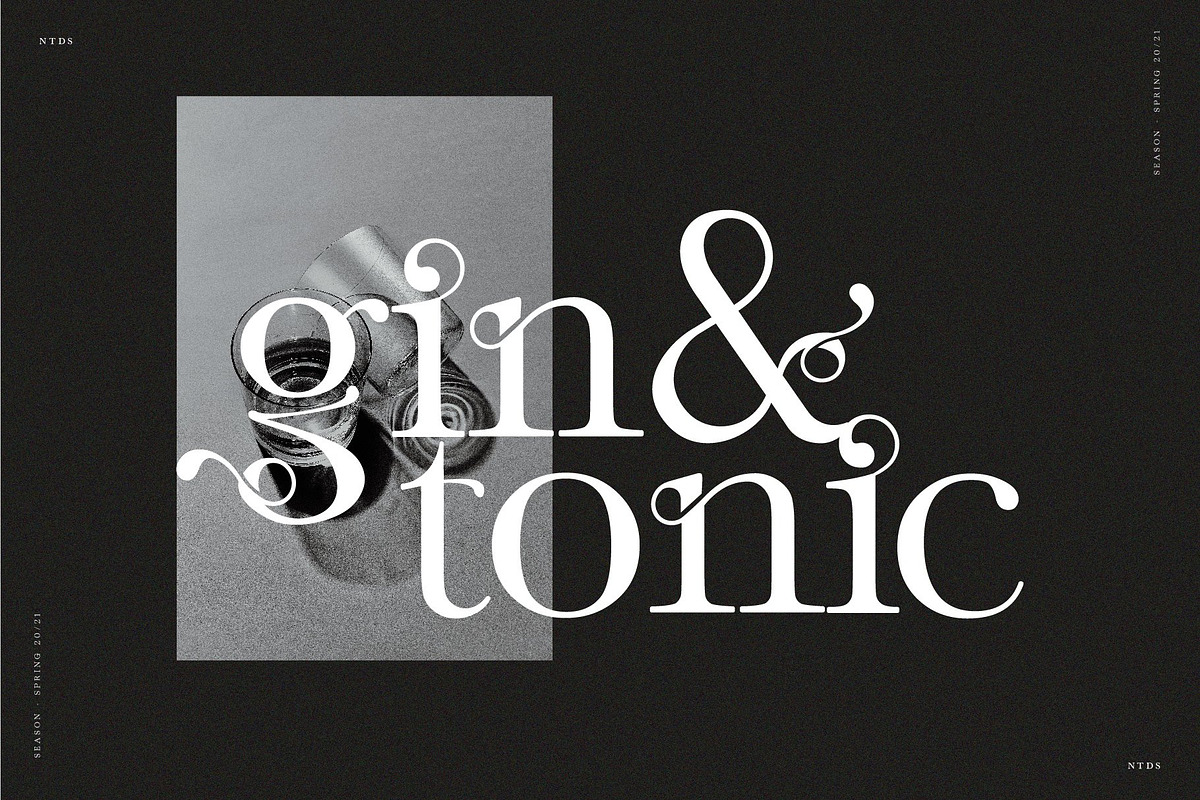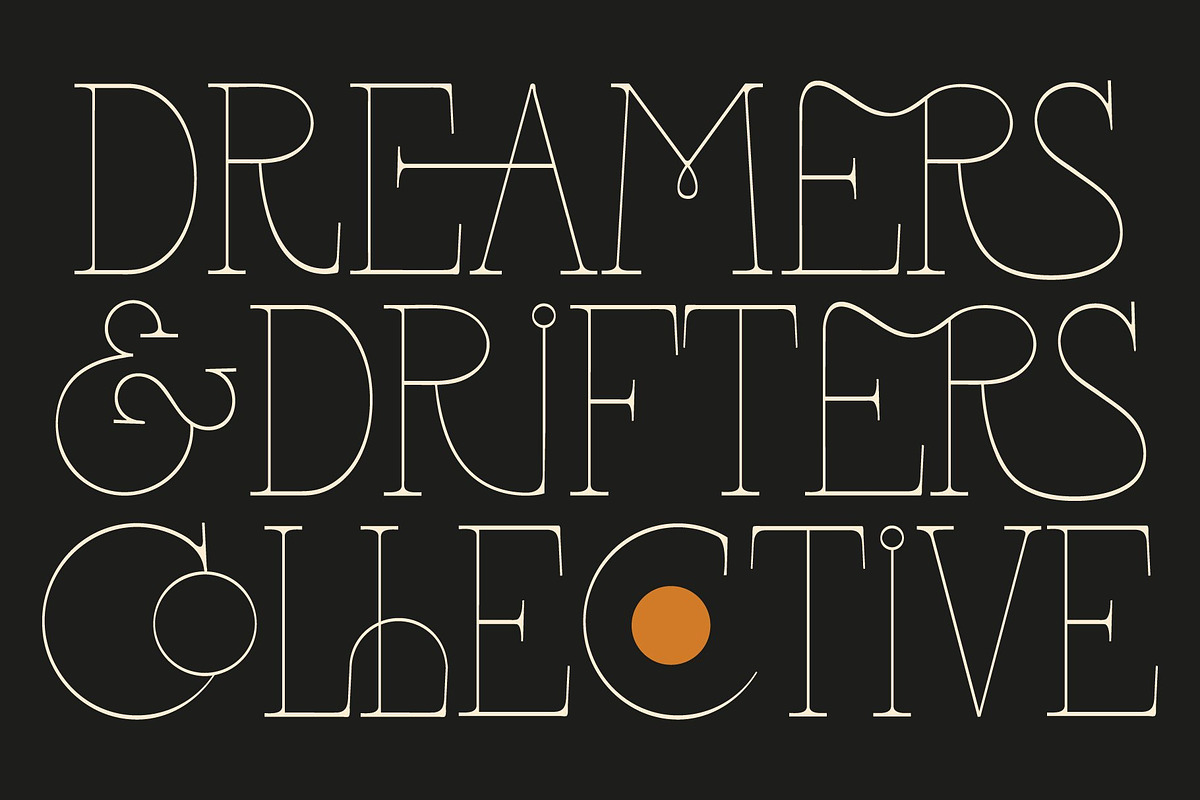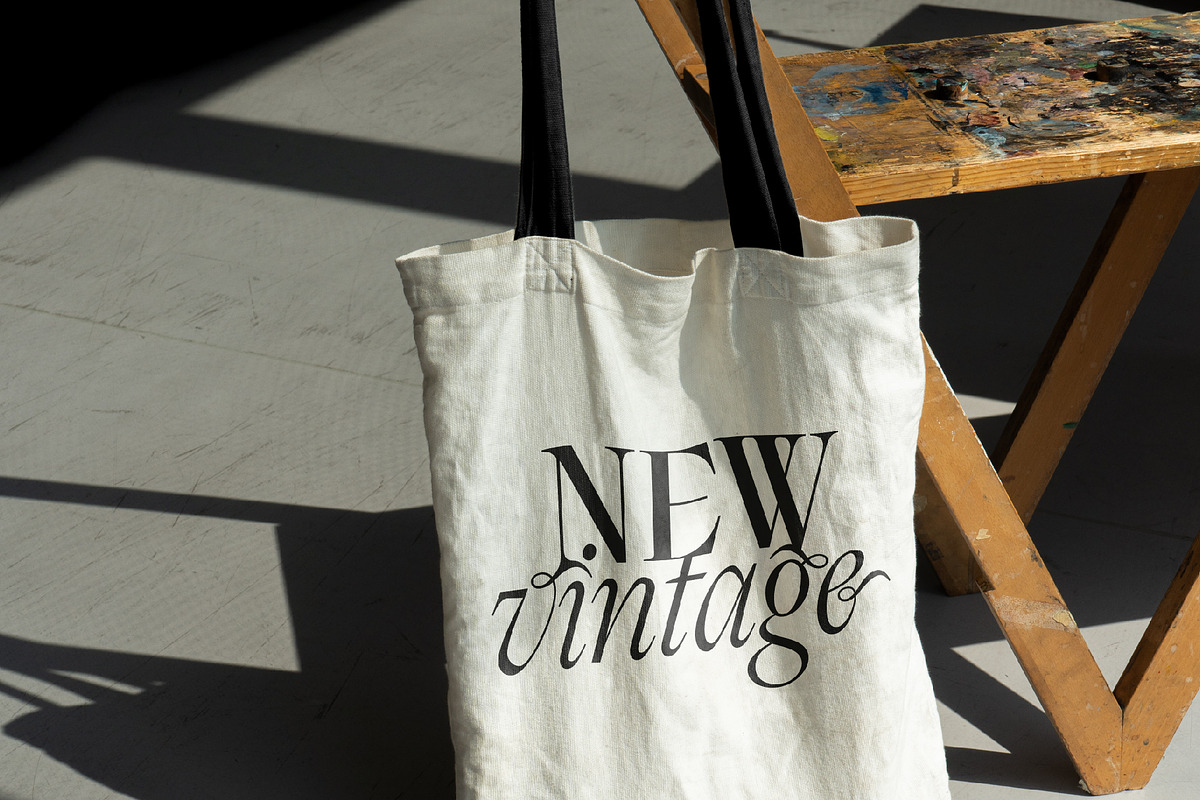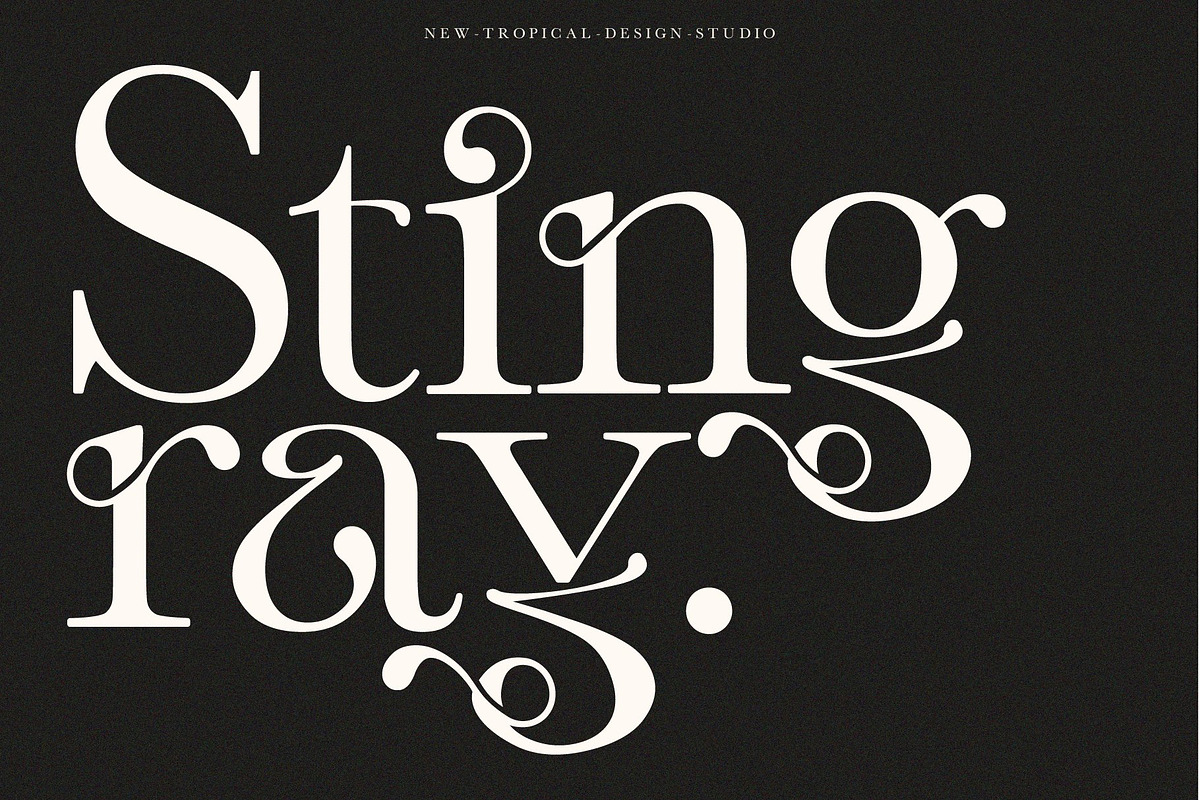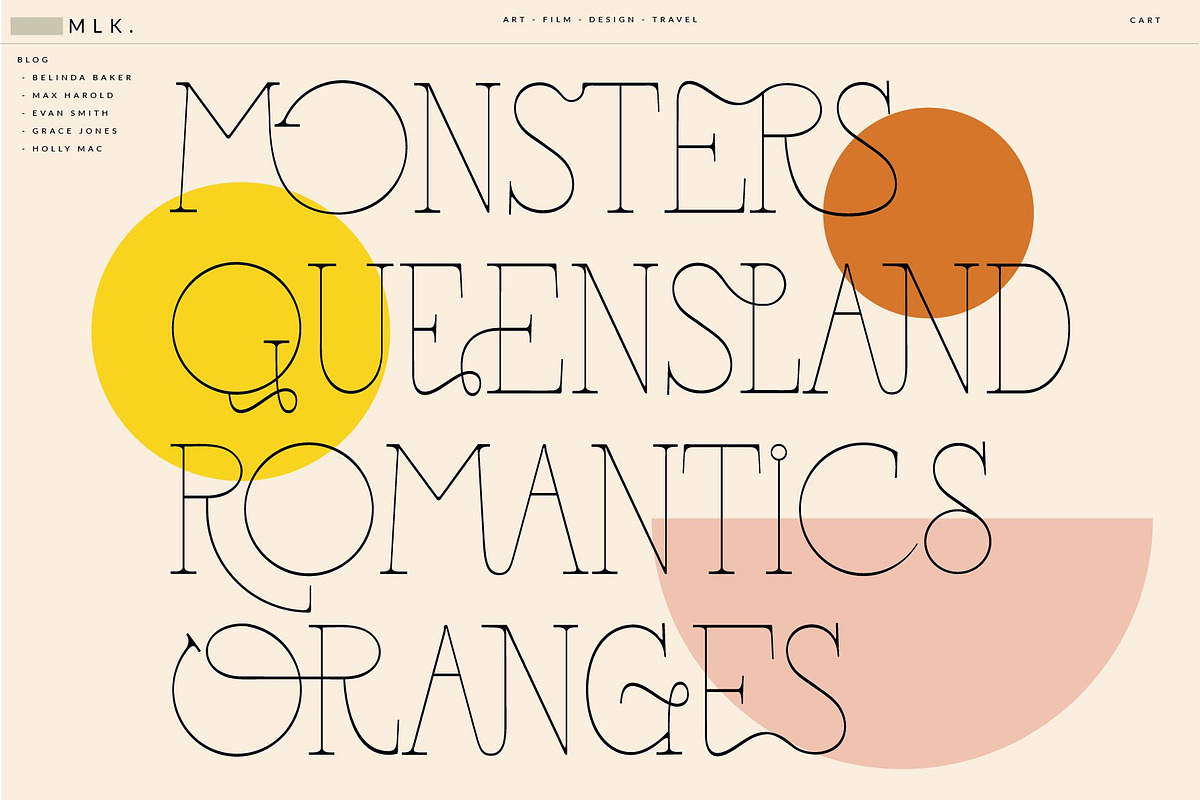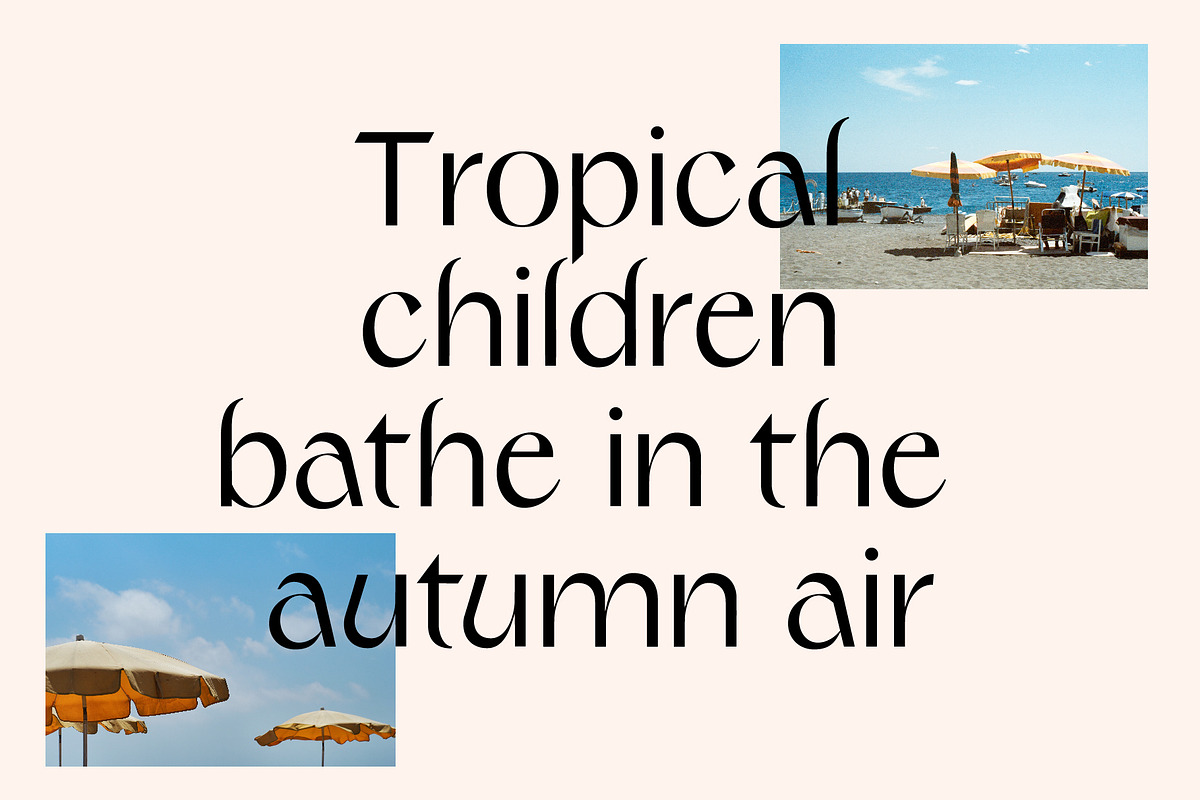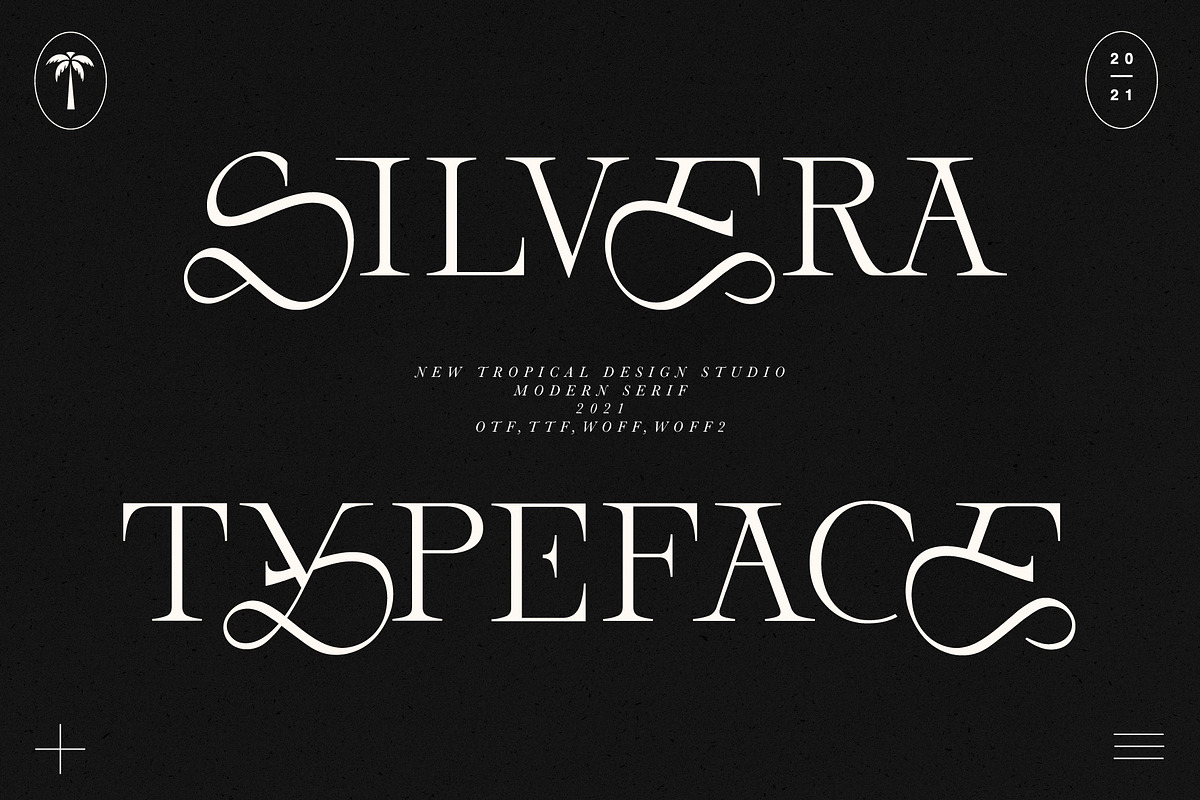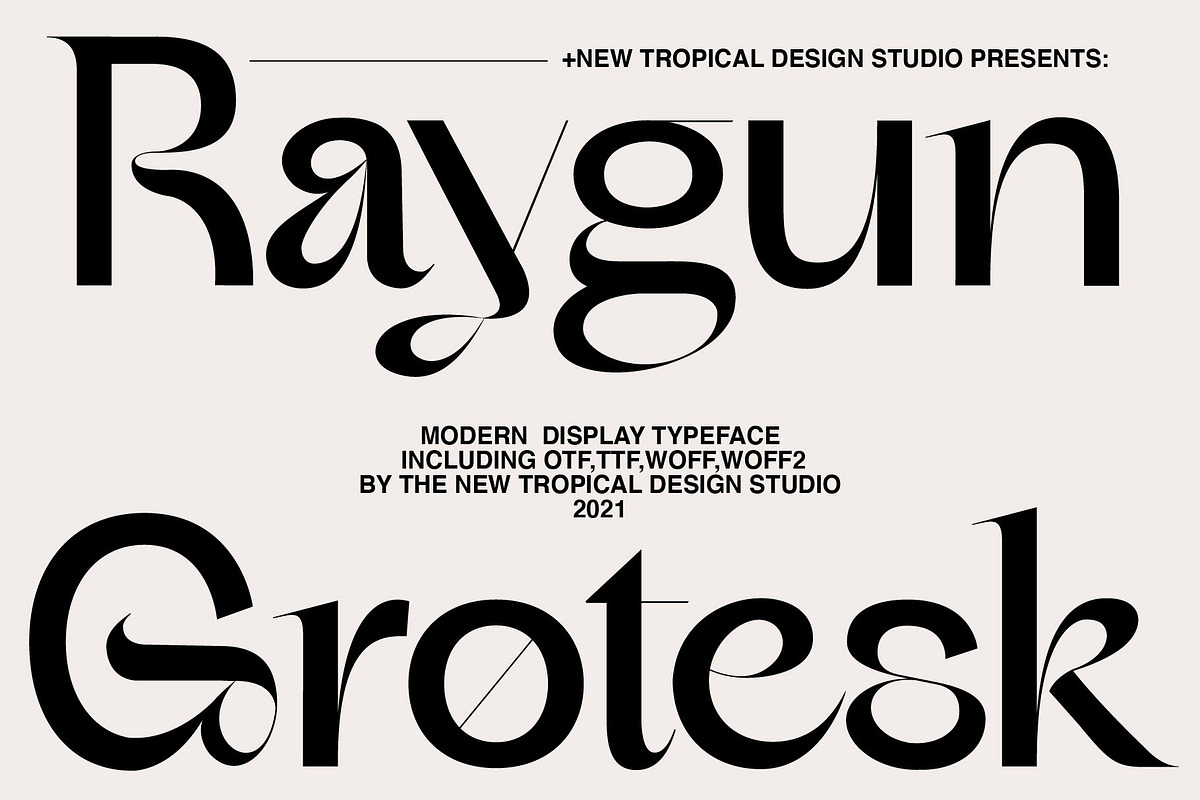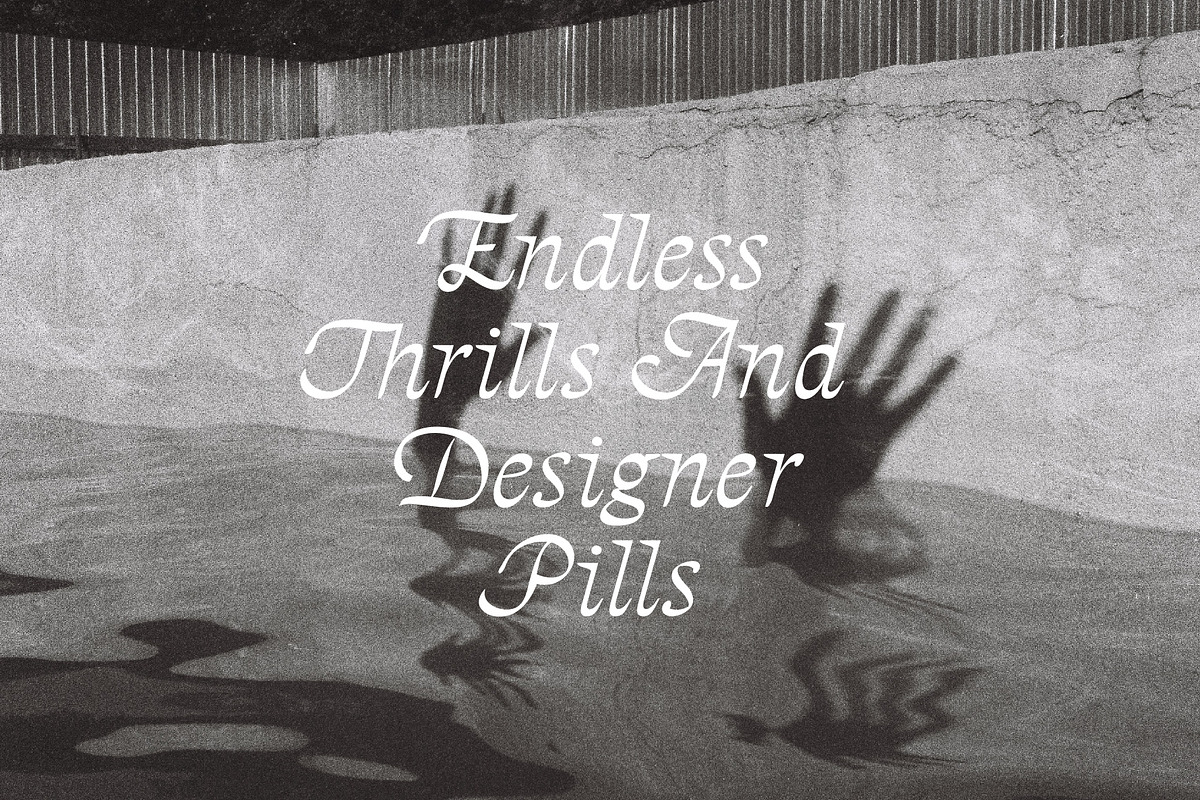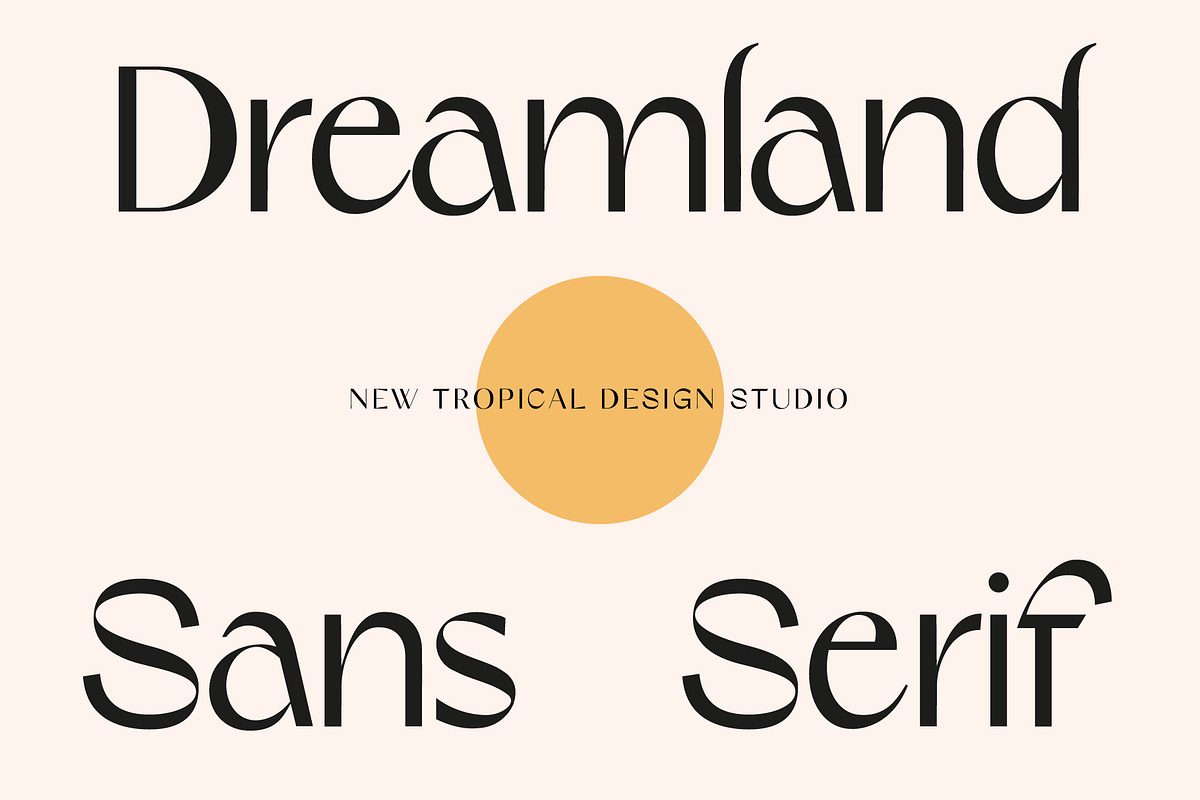
This is the 5th instalment of the Modern Font Bundle. Another 10 unique and exciting top selling fonts for only $29! This isn't some regular bundle that you see that packed full of boring filler fonts to make it look like a good deal. This is 10 memorable and stylish typefaces that took years to make. You have classy serifs, ornate italics, bold sans serifs and much more. Many of these typefaces have loads of alternate letters and ligatures to easily level up your type game. A lot of time and love went into these fonts and i hope you enjoy them.
So many amazing fonts that mix retro and modern styles perfectly. My favorites are Dark Paradise and Raygun. Tropical Type nails it again!
Love each and every font in this bundle. The alternates are amazing, really really great quality. Will definitely be purchasing more soon!